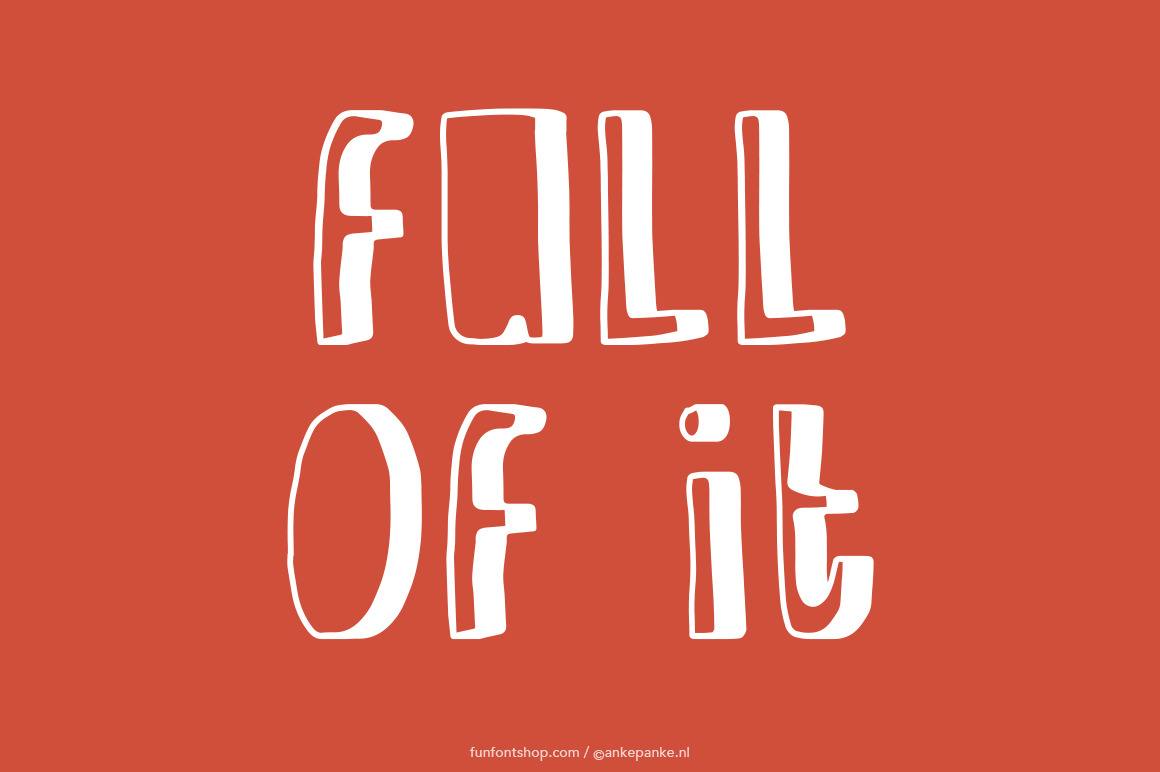
A happy font that is very suitable for kid-designs. This font was first draw by hand, scanned, vectorized and converted to a TTF file so you type with it. They have some imperfections, but I believe that adds to the handmade feeling.